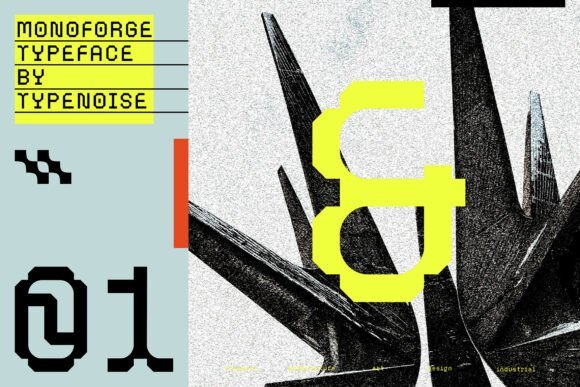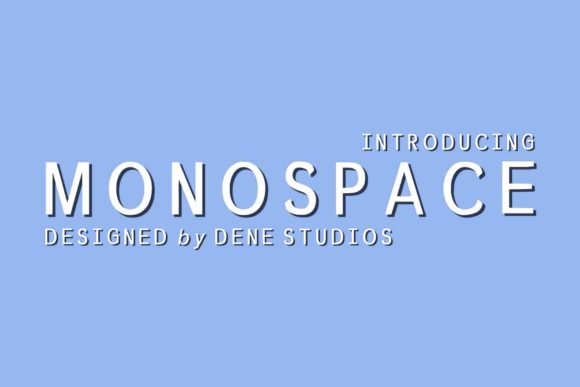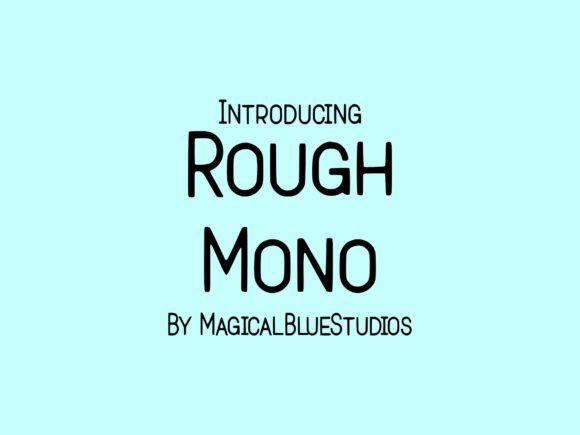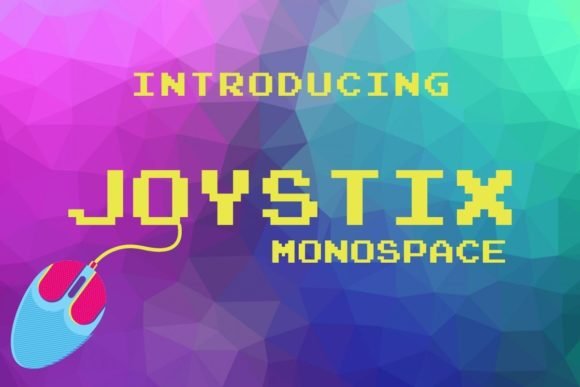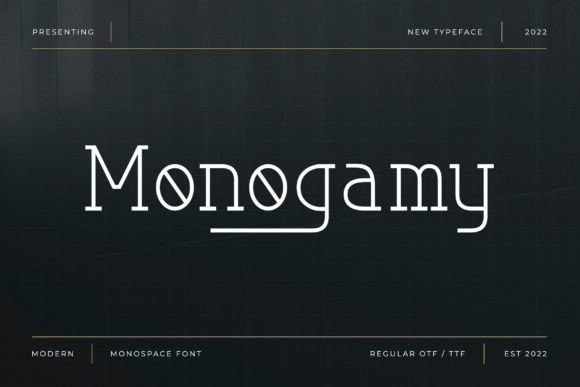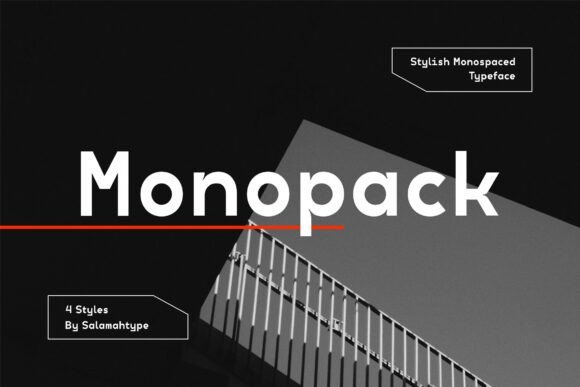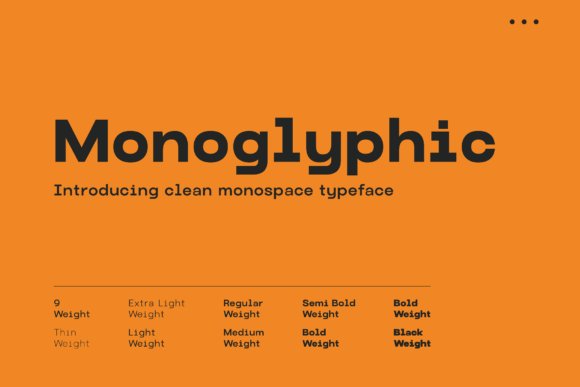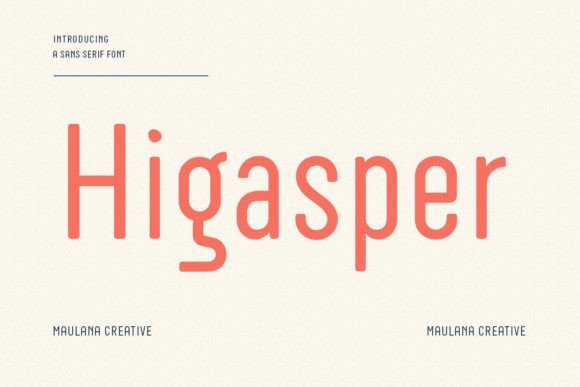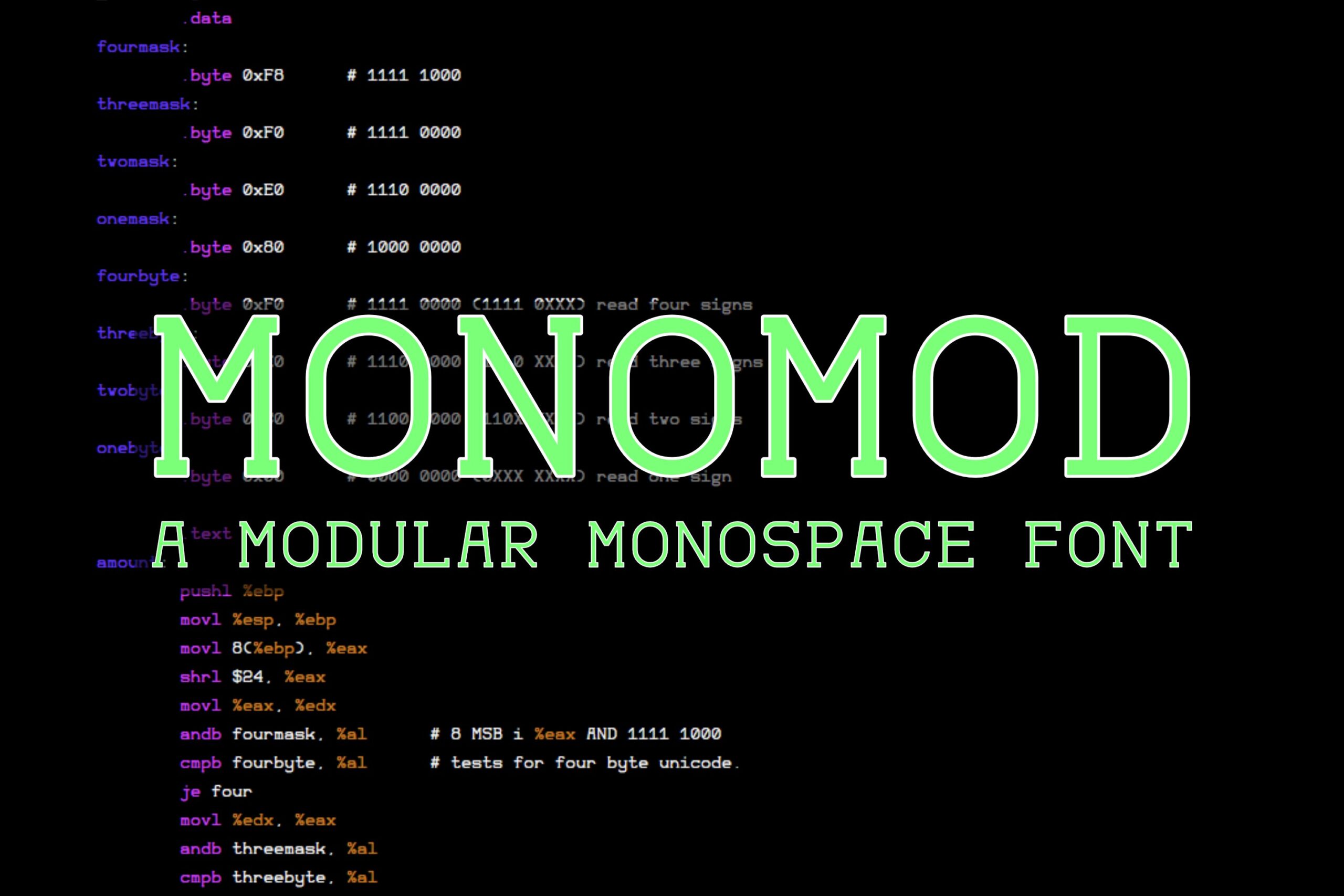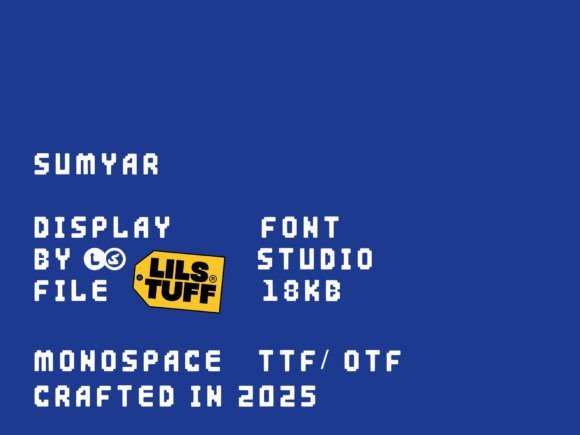
24 Best Monospace Font Options You Need to Try in 2026
Whether you are a developer staring at an IDE all day or a graphic designer aiming for that minimalist, retro-tech aesthetic, choosing the right fixed-width typeface makes all the difference. The beauty of a high-quality monospace font lies in its perfect alignment, where every character takes up the exact same amount of horizontal space. As we navigate the latest design trends in 2026, the demand for clean, legible coding fonts and non-proportional typefaces has never been higher. I have spent hours testing various options to bring you this carefully curated list of 24 standout choices. If you are ready to upgrade your text editor or give your next branding project a distinct typographical edge, finding your new go-to typeface starts right here.
1. Monoforge Font
Monoforge
Monoforge is a striking typographic achievement that draws its primary inspiration from the raw, unapologetic aesthetics of industrial design and brutalist architecture. By embracing the functional precision inherent in a classic monospace font, this typeface delivers a bold visual statement rooted in strength and structural simplicity. Every character is meticulously engineered to occupy the same horizontal space, creating a satisfying geometric rhythm that pays homage to traditional typewriter and coding typefaces. The result is a highly legible, rigidly structured design that evokes a sense of stark minimalism and deliberate purpose, making it an exceptional choice for modern creative projects that demand an immediate visual impact.
Beyond its rugged exterior, Monoforge proves to be a highly versatile tool for designers looking to balance utility with an uncompromising, contemporary style. The fixed-width character grid ensures flawless uniformity and clarity, perfectly suited for tech-focused branding, editorial layouts, or sleek digital user interfaces. Whether you are designing an app environment that requires the disciplined alignment of a premium monospace font, or crafting a brutalist poster design, this typeface injects an unmistakable industrial character into your work. Provided in both OTF and TTF formats, Monoforge seamlessly blends form and function, offering a timeless yet rugged aesthetic for the modern creator.
2. Monospace Font
Monospace
Aptly named, the Monospace Font stands out as a brilliantly clean and exquisitely simple sans serif typeface that brings a refreshing modern edge to contemporary design. Stripping away unnecessary ornamentation, this typeface focuses purely on the beauty of uniform character widths, a hallmark of any highly functional monospace font. Its pristine, unembellished letterforms create an incredibly breathable typographic texture, giving your layouts an organized, structured appearance that feels both approachable and professional. By marrying the utilitarian nature of fixed-pitch typography with the smooth elegance of a modern sans serif, this font establishes a distinct aesthetic that effortlessly bridges the gap between technical precision and creative versatility.
Because of its inherent clarity and balanced spacing, this monospace font is a powerhouse for a wide variety of practical applications and digital environments. It is an ideal typographic choice for coding environments, technical documentation, and minimalist user interfaces where legibility and tabular data alignment are absolutely paramount. Additionally, graphic designers will find it incredibly useful for crafting sleek brand identities, futuristic editorial layouts, and striking packaging designs that require a crisp, modern vibe. Whether used for heavy bodies of text or impactful, sparse headlines, this typeface proves that simplicity is often the ultimate form of sophistication.
3. Joystix Monospace Font
Joystix Monospace
Joystix Monospace is a brilliantly nostalgic, arcade video game-inspired decorative typeface that instantly transports your audience back to the golden era of 8-bit gaming. Designed with an authentic, pixelated aesthetic, this creative monospace font perfectly captures the chunky, blocky charm of classic cathode-ray tube gaming displays. Because each character is built on a rigid, fixed-width grid, it mimics the exact technical constraints of early computer programming and vintage arcade machines. This deliberate adherence to the structural rules of a traditional monospace font ensures that your text aligns beautifully, offering a meticulously organized yet undeniably playful typographic experience.
The unique blend of retro flair and fixed-pitch precision makes Joystix Monospace an outstanding choice for highly stylized creative projects. It is an absolute must-have for indie game developers designing authentic user interfaces, title screens, and dialogue boxes that require a genuine retro aesthetic. Beyond the realm of game design, this monospace font works exceptionally well for nostalgia-driven marketing campaigns, tech-themed event posters, and streetwear apparel branding. By combining the rigid discipline of a fixed-width typeface with a wildly fun, pixel-perfect personality, Joystix Monospace gives designers a powerful tool to inject classic arcade energy into any modern visual composition.
4. Rough Mono Font
Rough Mono
Imbue your creations with the unique character of the Rough Mono Font, a striking text style that beautifully marries structural precision with raw, organic textures. With its subtly worn, uneven appeal, this typeface carries the unmistakable essence of vintage, retro, and industrial design. As a distinctive monospace font, it infuses an unexpected blend of contemporary fixed-width mechanics with a rugged aesthetic. This duality makes it an optimal choice for a wide variety of creative projects, ranging from artisanal branding and custom apparel to impactful logo creation and immersive digital endeavors.
What sets Rough Mono apart in the typography landscape is its appealing balance of strict alignment and delightful flaws. It offers an offbeat charm that mirrors the irresistible warmth of handcrafted objects, the gritty tactile feel of antique typewriter keys, and the rebellious vibe of the grunge subculture. This coding-style fixed-pitch aesthetic is specifically designed to inject personality and singularity into the work of designers and crafters seeking that elusive sweet spot between accuracy and artful deviation. Let your designs confidently stand out with Rough Mono, a beautifully textured embodiment of modern edge within the monospace font category.
5. Monogamy Font
Monogamy
Monogamy Font emerges as a brilliantly crafted modern monospace font that seamlessly introduces elegant serifs into a traditionally rigid typographic space. Perfect for an incredibly wide variety of design applications, it reimagines the classic fixed-width typeface by adding refined details that demand attention. Whether you are laying out an editorial spread, designing sleek packaging, or developing a captivating website, adding this beautiful display font to your creative ideas guarantees they will instantly stand out. The structured, terminal-inspired spacing inherently found in a monospace font provides excellent readability, while the delicate serifs offer a sophisticated, literary charm.
Finding the perfect typeface does not have to be a headache. The 24 options we have covered offer a fantastic balance of readability, personality, and technical precision. Whether your priority is reducing eye strain during long coding sessions or bringing a structured, brutalist vibe to your typography, there is something here for every creative need. Take your time testing these out in your own environment to see which one feels best for your workflow. Do not be afraid to switch things up—a fresh font can completely revitalize your daily coding or design routine this year.